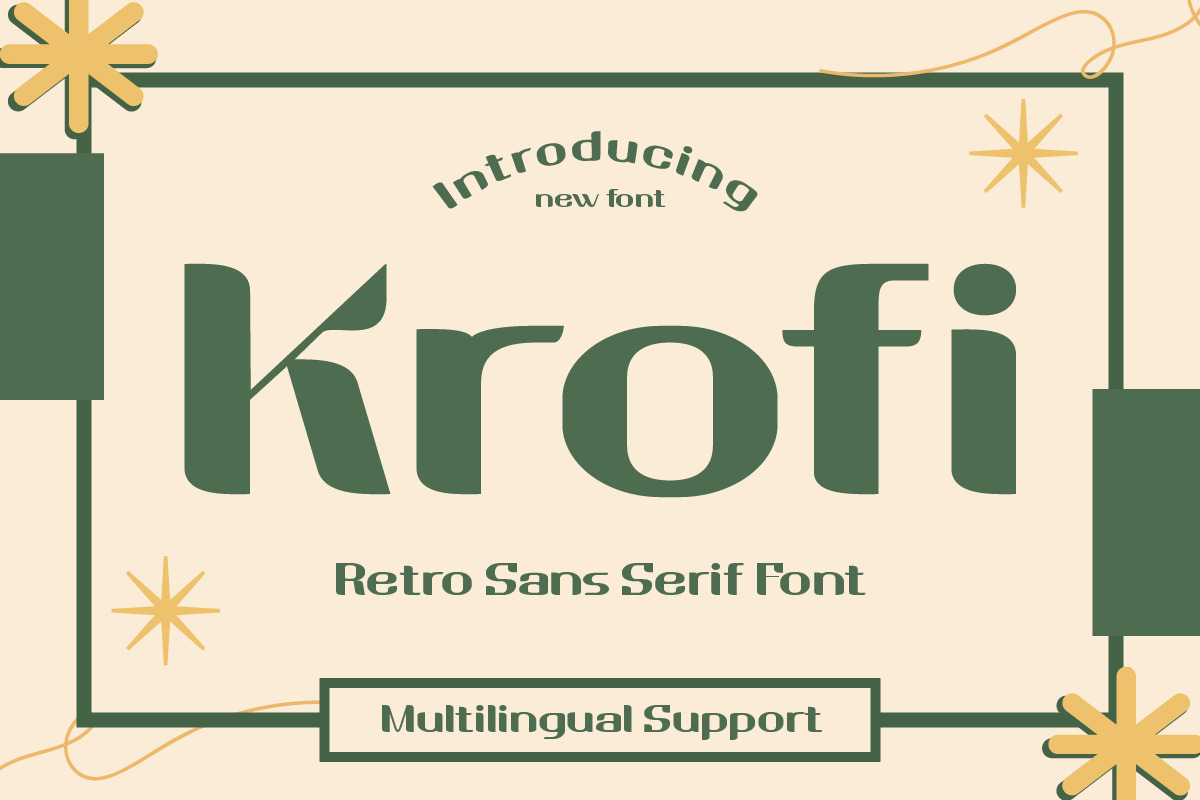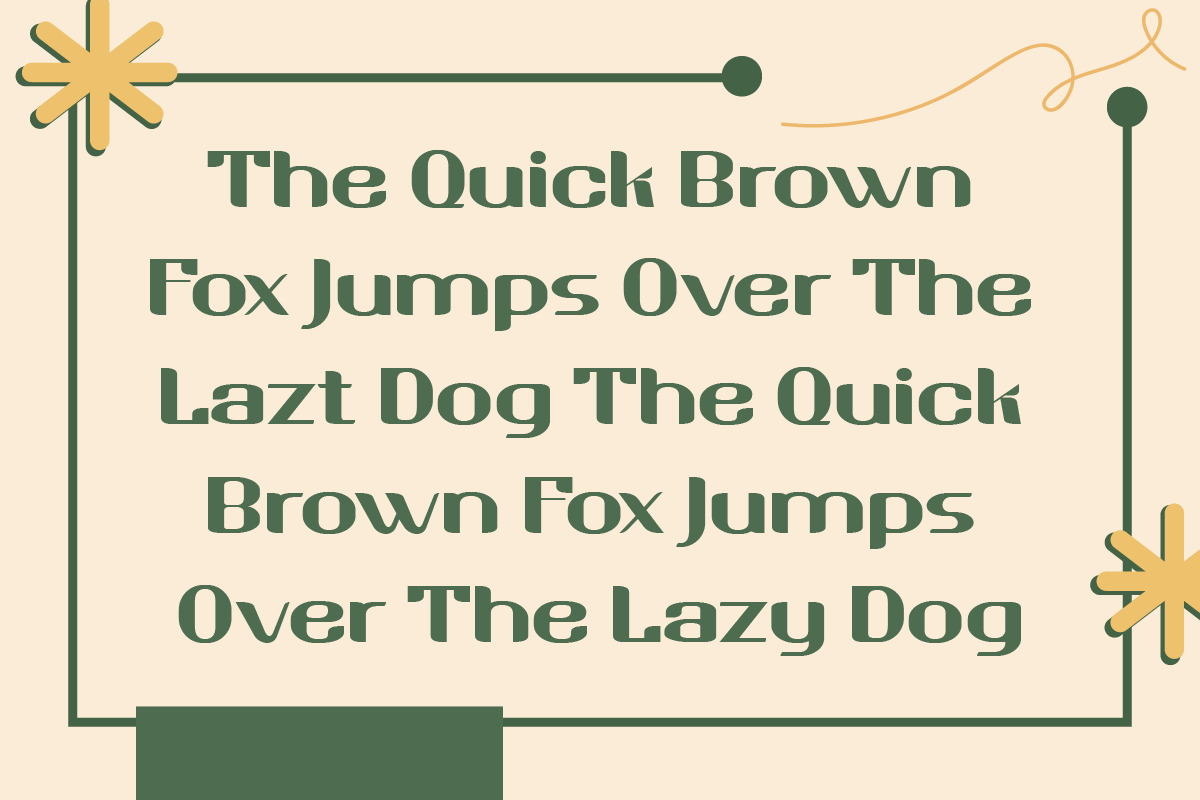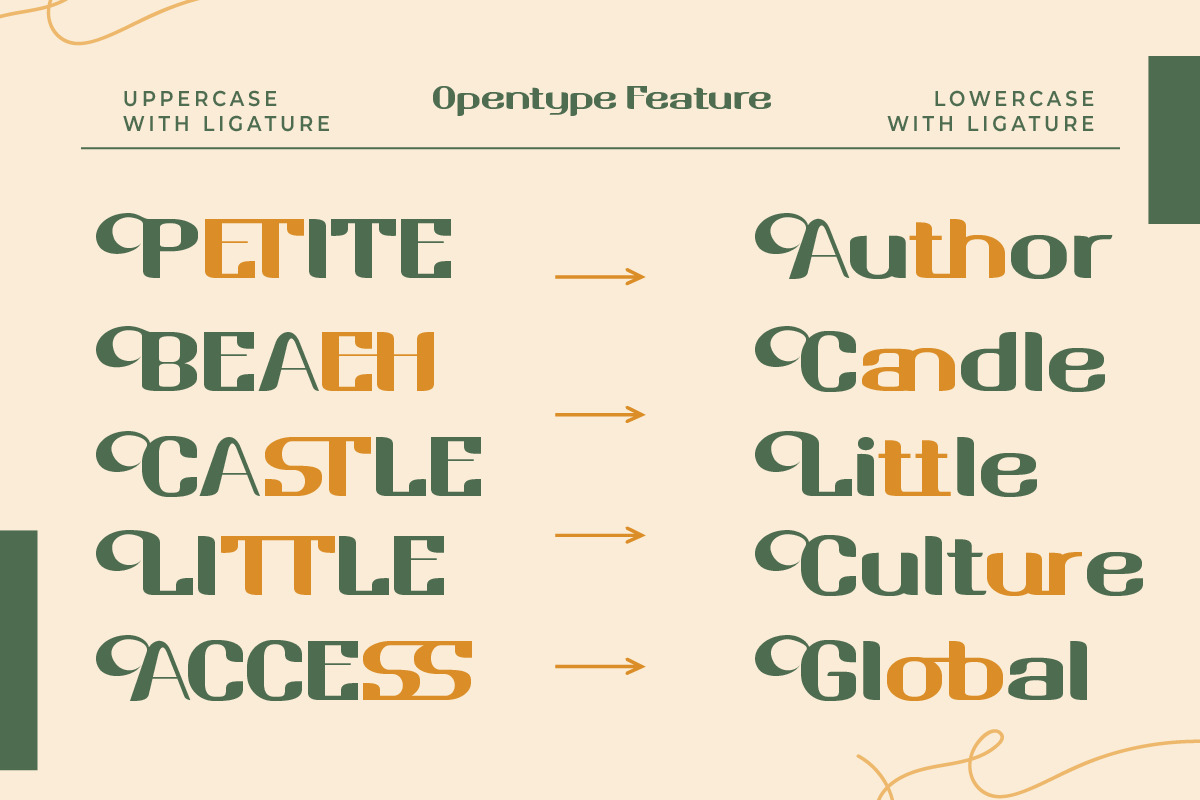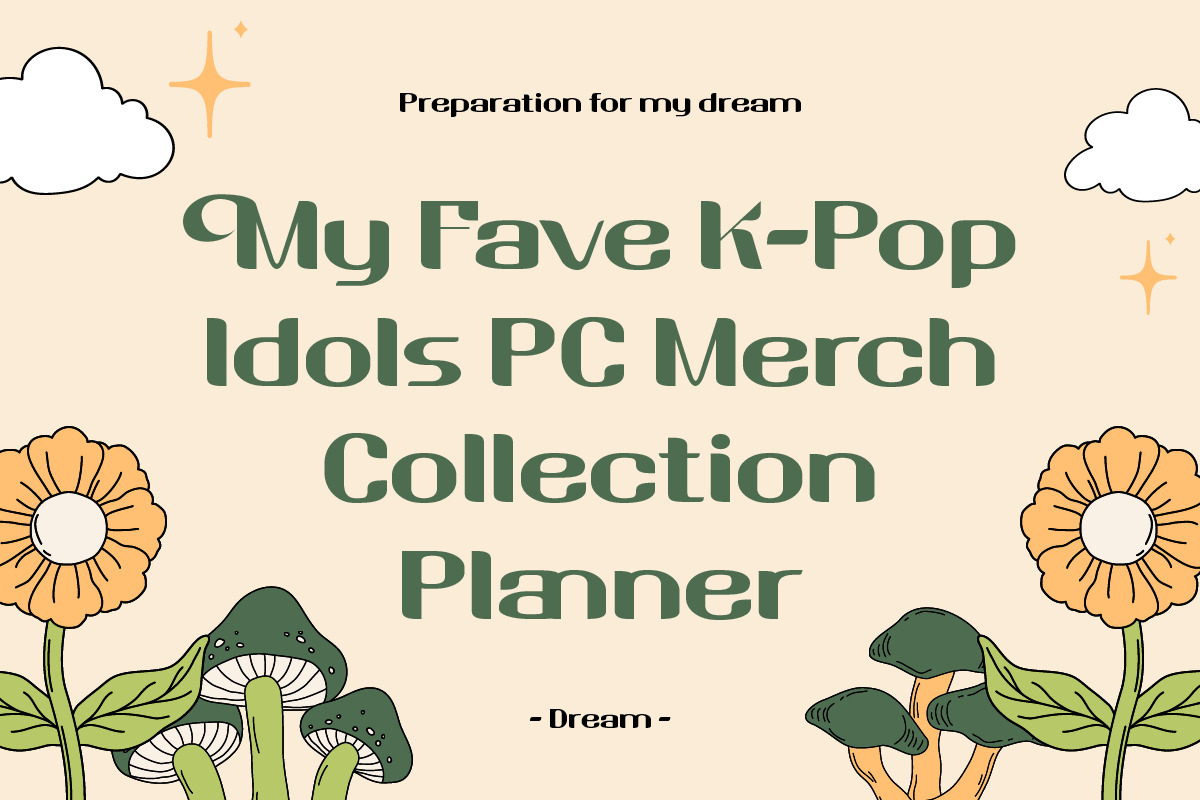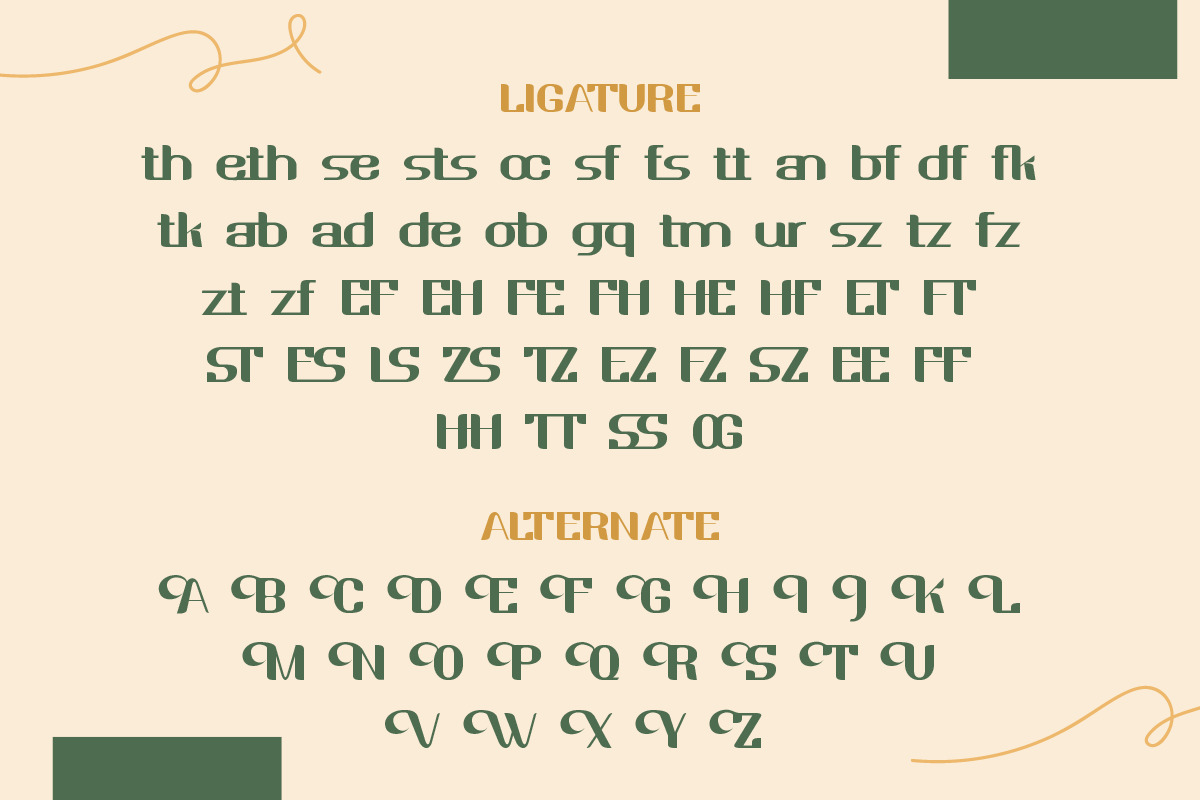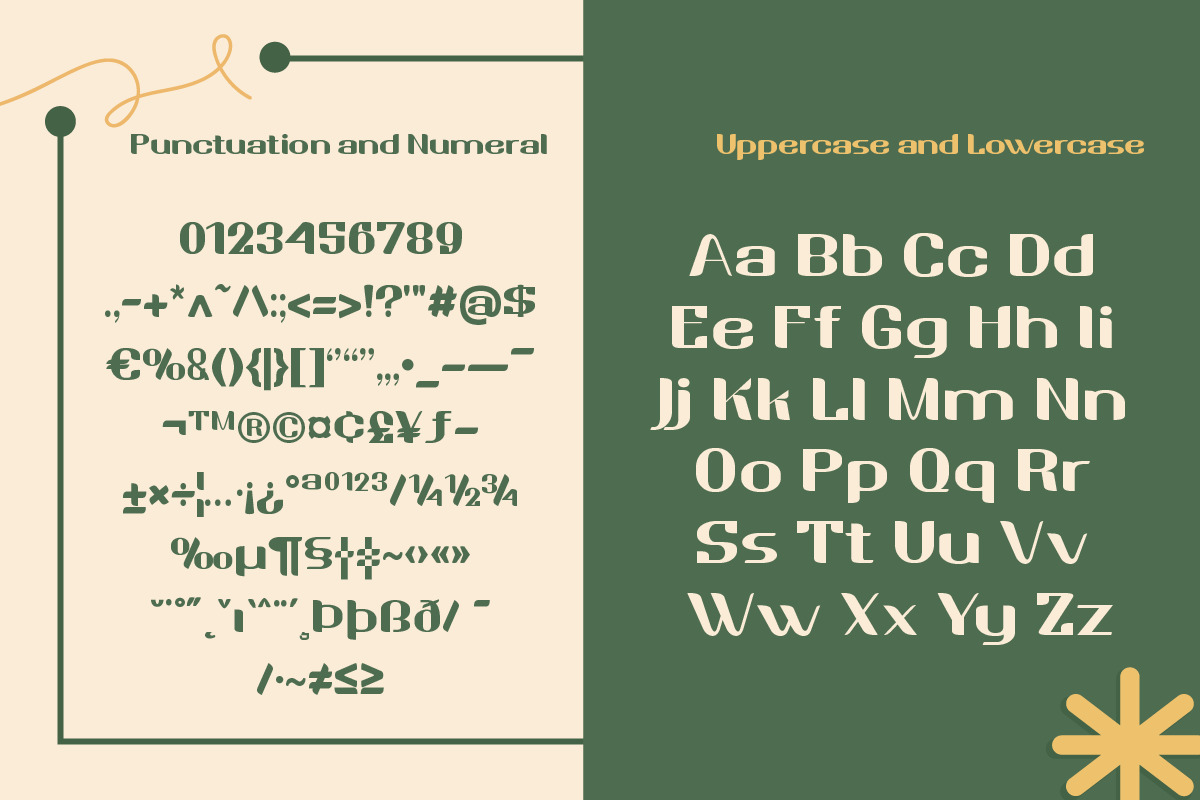
Krofi - Retro Sans Serif Font
Introducing the stunning Krofi font, a Retro Display Serif Font that will take your designs to the next level! Its vintage and retro style is perfect for creating a nostalgic and classic feel to your projects. With its clean lines and elegant curves, this font adds a touch of sophistication to any design. Its bold and striking presence is perfect for headlines, titles, and logos, making it a versatile addition to your font collection. The Krofi font is sure to catch the eye of potential customers with its timeless and classic charm. Don't miss out on this fantastic font!